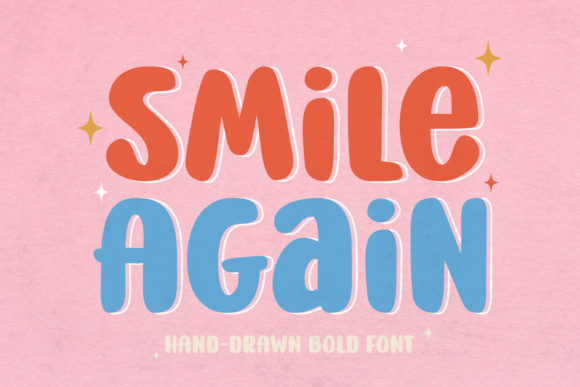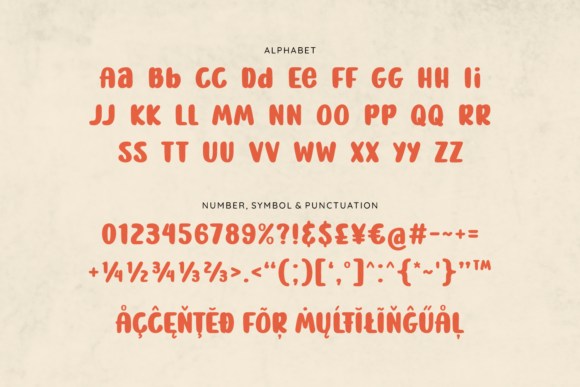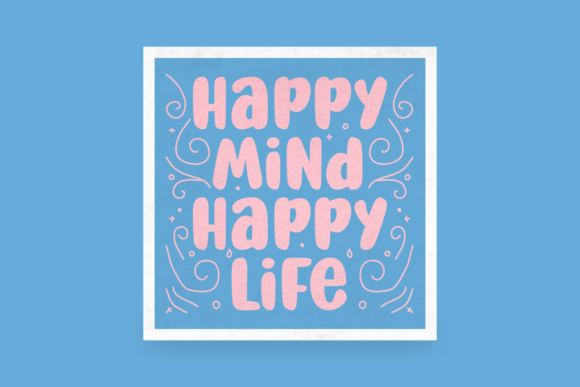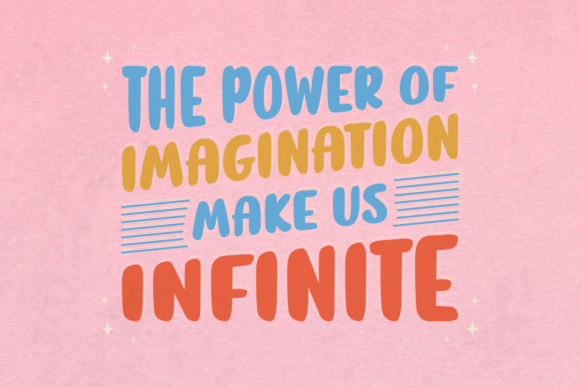
Smile Again Font Download – Stylish Playful Handwritten Script
The Smile Again Font download is a stylish handwritten typeface designed to bring uniqueness and playfulness to your projects. With its flowing strokes and casual design, this font is perfect for both personal and professional use. Whether you’re creating birthday cards, apparel, or websites, Smile Again ensures your work stands out with charm and creativity.
A Stylish and Playful Handwritten Style
The Smile Again Font download features smooth strokes and natural curves that capture the beauty of handwriting. Its playful character makes text feel warm and approachable, while its stylish flow adds sophistication.
Perfect for Birthday Cards and Quotes
From heartfelt birthday cards to inspirational quotes, the Smile Again Font download is the perfect choice. Its handwritten charm ensures your messages are both personal and visually appealing.
Great for Packaging and Apparel
The Smile Again Font download is also ideal for product packaging, apparel, and lifestyle branding. Its stylish handwritten look communicates creativity and originality, making it suitable for modern fashion and boutique products.
Versatile for Websites and School Projects
Websites, blogs, and school projects benefit from the Smile Again Font download. Its balance of clarity and playfulness ensures that your designs feel both professional and approachable.
Readability with a Unique Flow
While some handwritten fonts sacrifice readability, the Smile Again Font download maintains legibility without losing its playful energy. Its clean structure allows it to work effectively in both large titles and smaller text.
Why Choose Smile Again Font?
Among handwritten typefaces, the Smile AgainFont download stands out for its stylish design, playful rhythm, and versatile applications. It is suitable for everything from cards and quotes to apparel and branding.
Add Playfulness to Your Creative Projects
Typography shapes how your designs are perceived, and the Smile AgainFont download ensures your projects feel fun, stylish, and unique. Whether for packaging, school projects, or digital designs, this font brings charm and creativity.